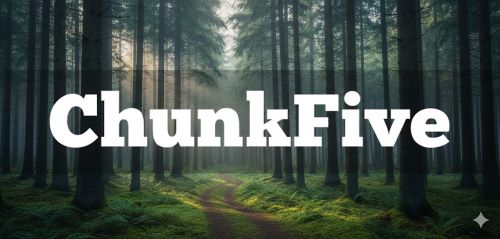
ChunkFive Font
ChunkFive Font is a bold slab-serif display typeface built for powerful, attention-grabbing headlines. With its thick strokes, heavy serifs, and vintage newspaper feel, it’s perfect for posters, logos, branding, and editorial designs that need strength and impact. ChunkFive delivers a confident, classic, and highly readable look.
➤ Font Name: ChunkFive
➤ Designer: Meredith Mandel
➤ Style: Slab-serif Display